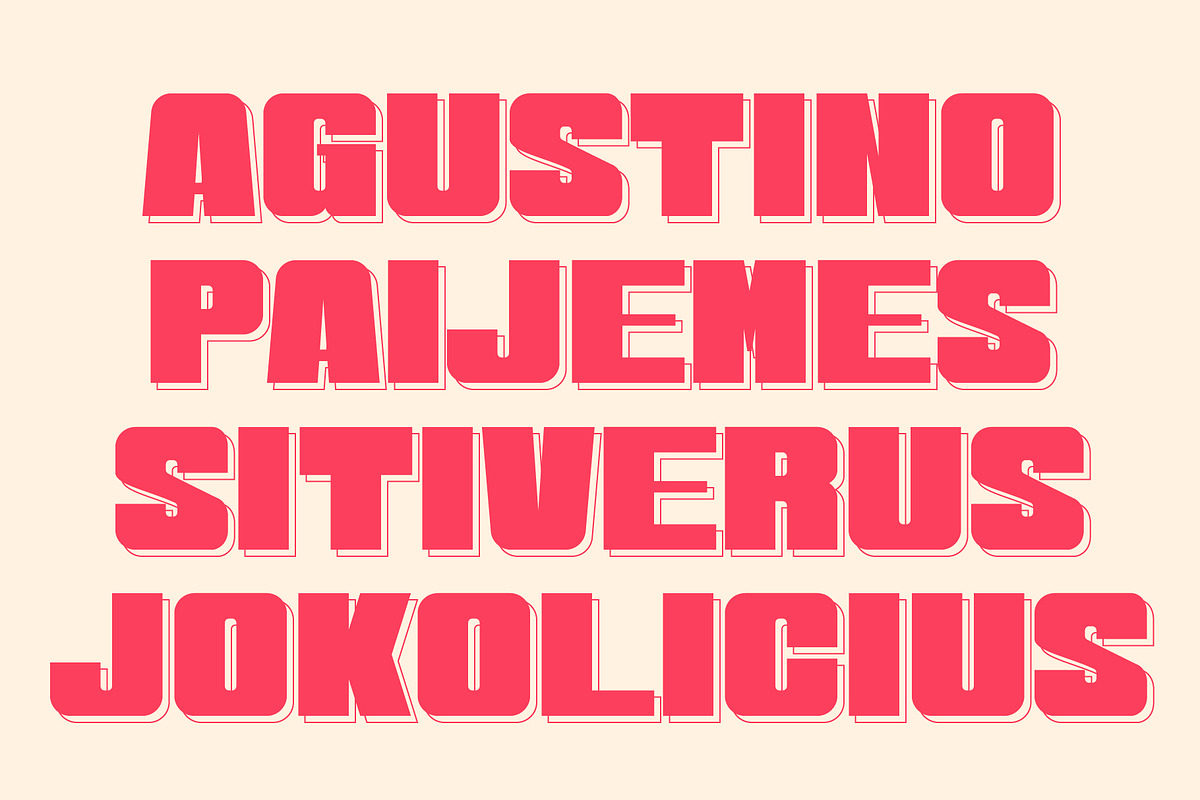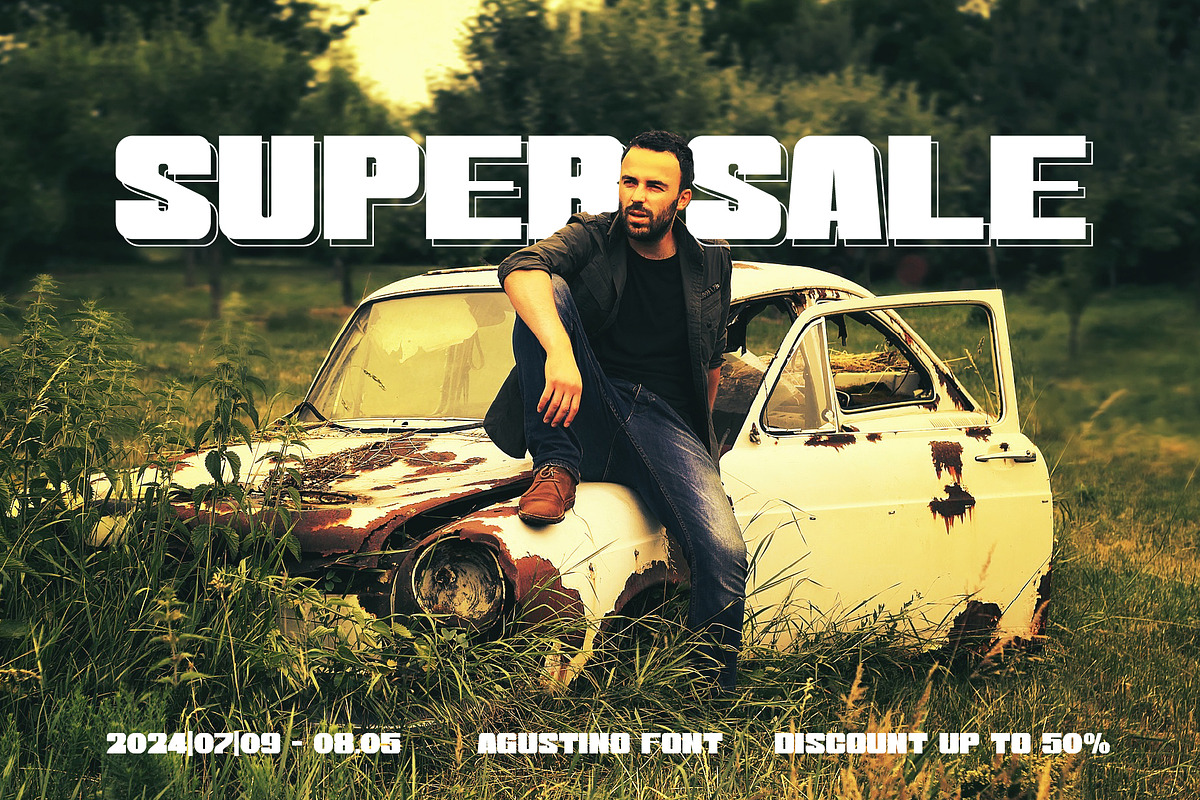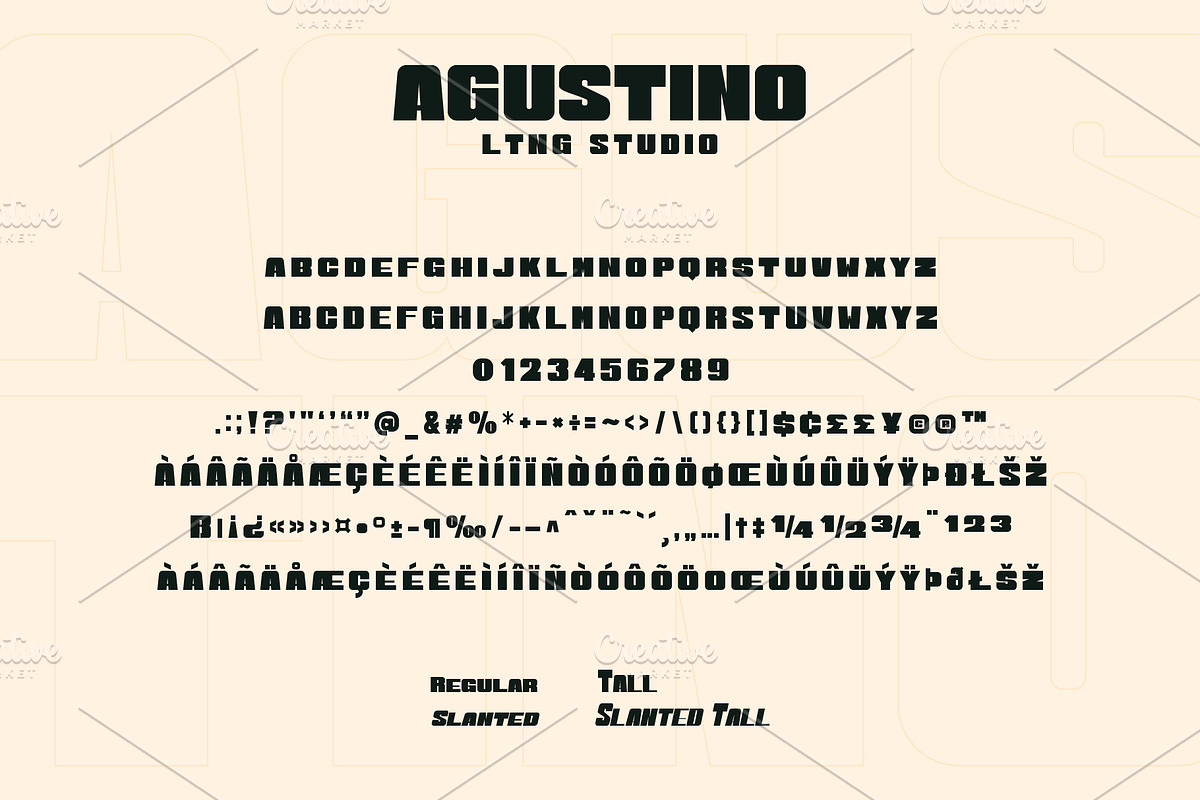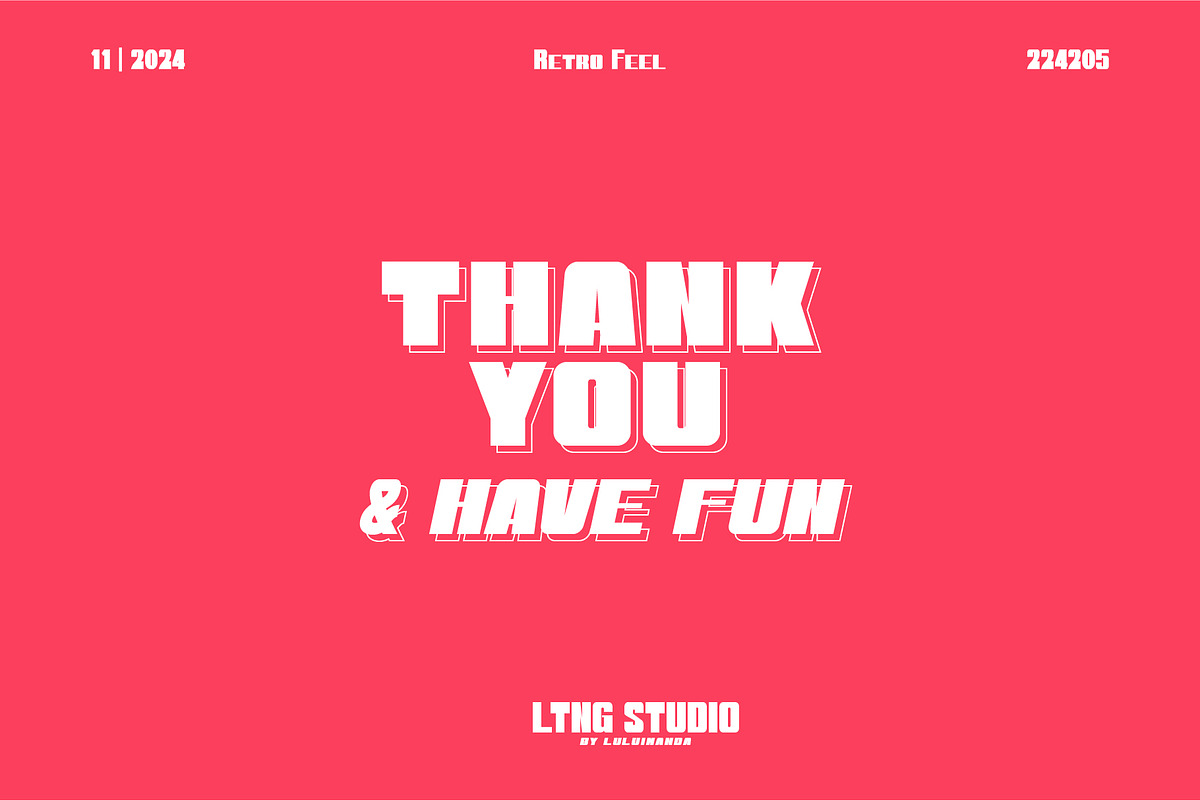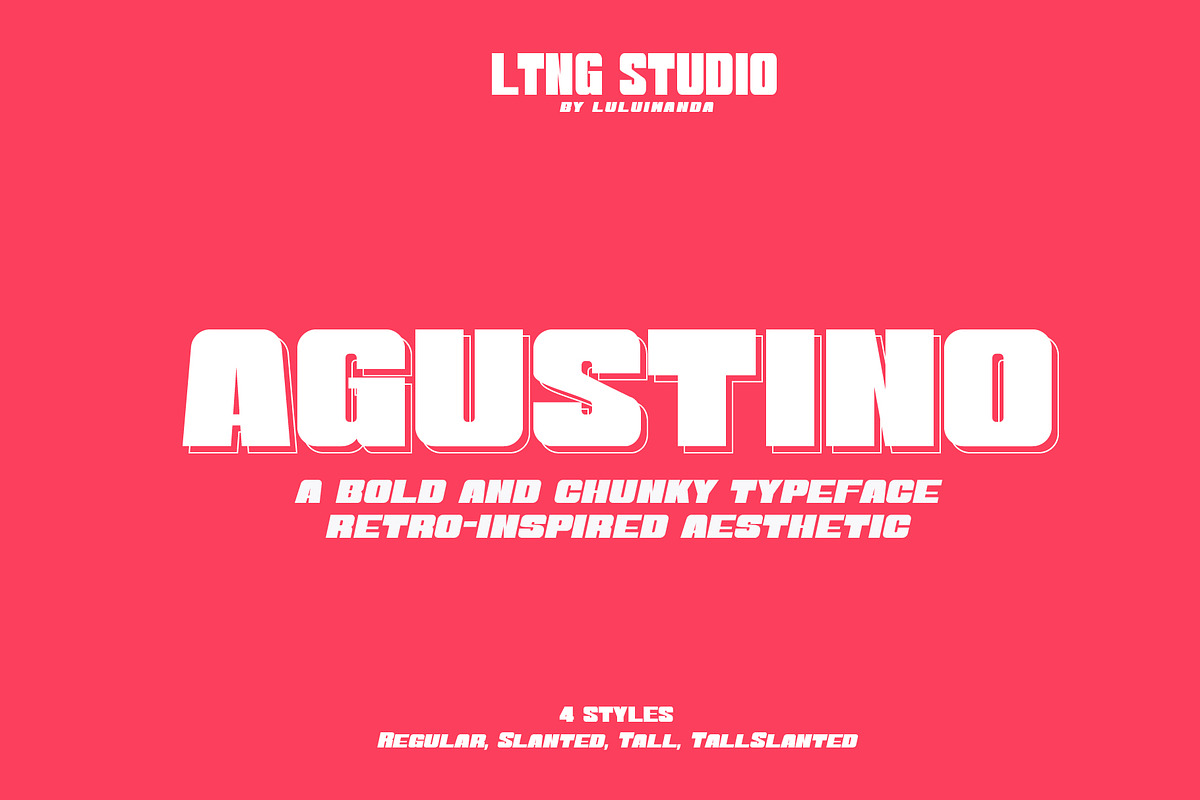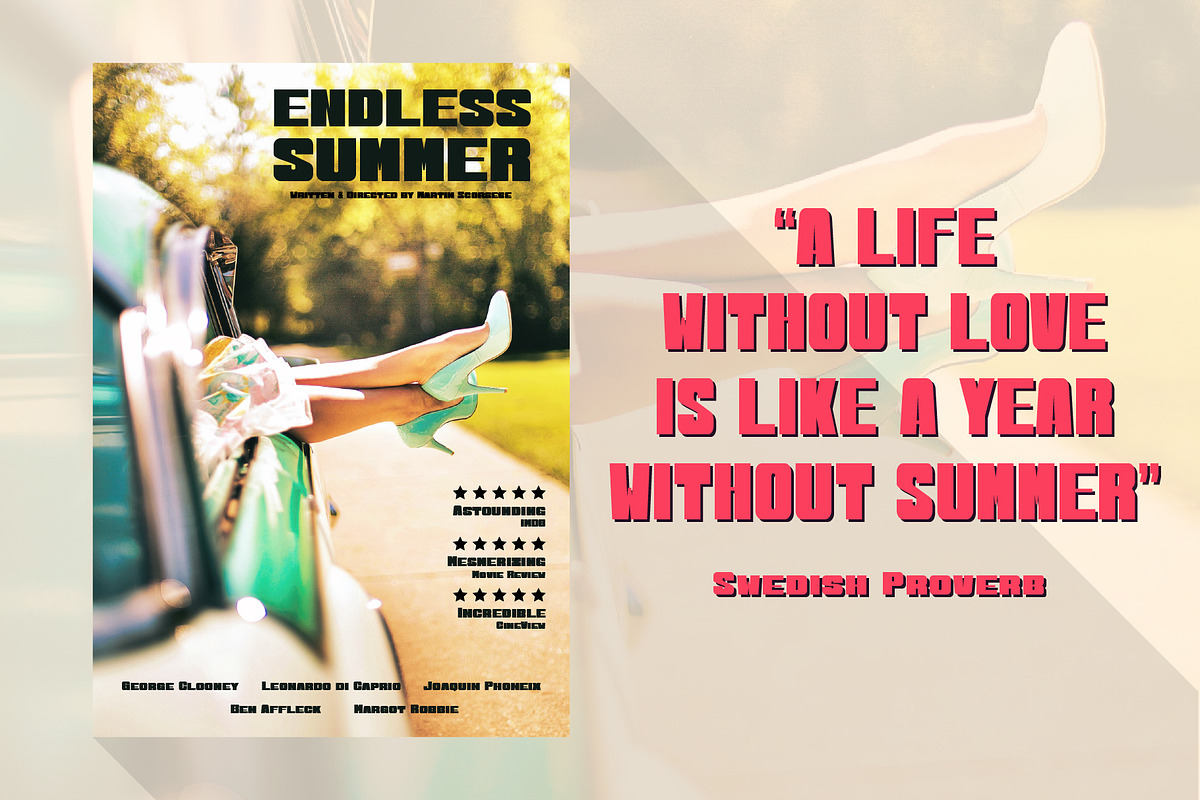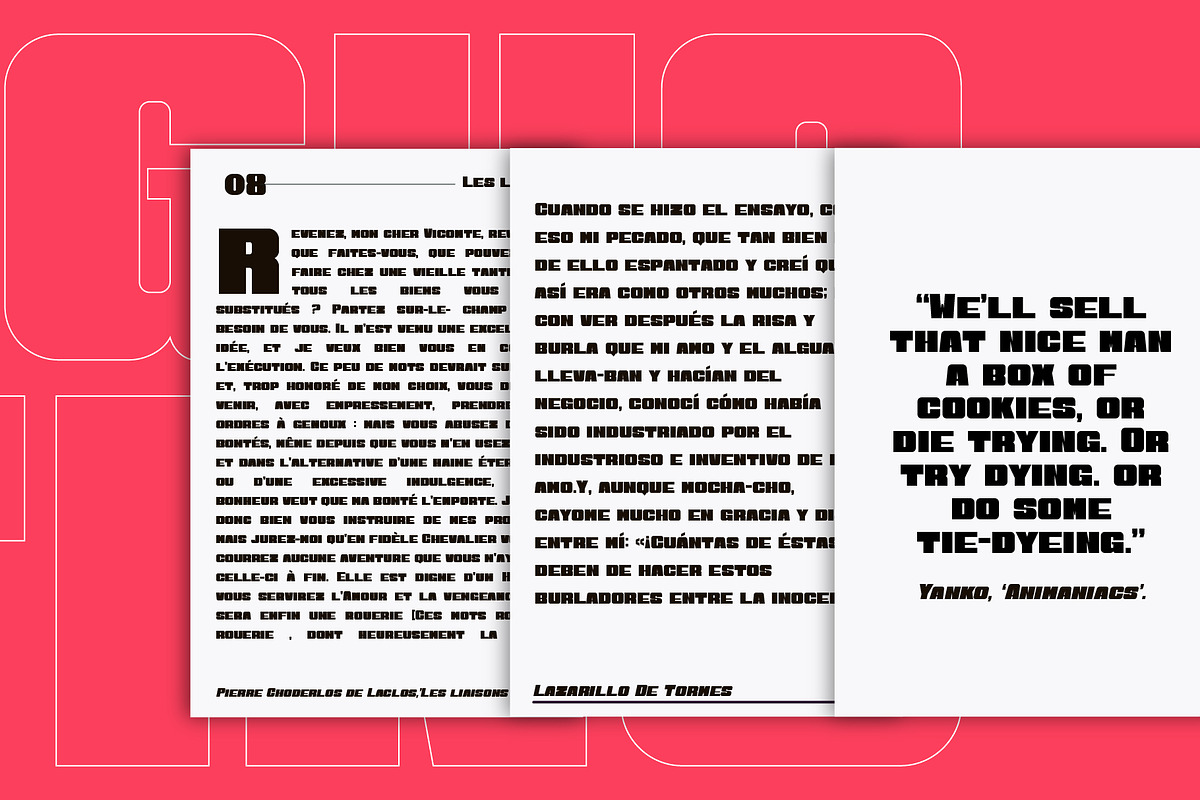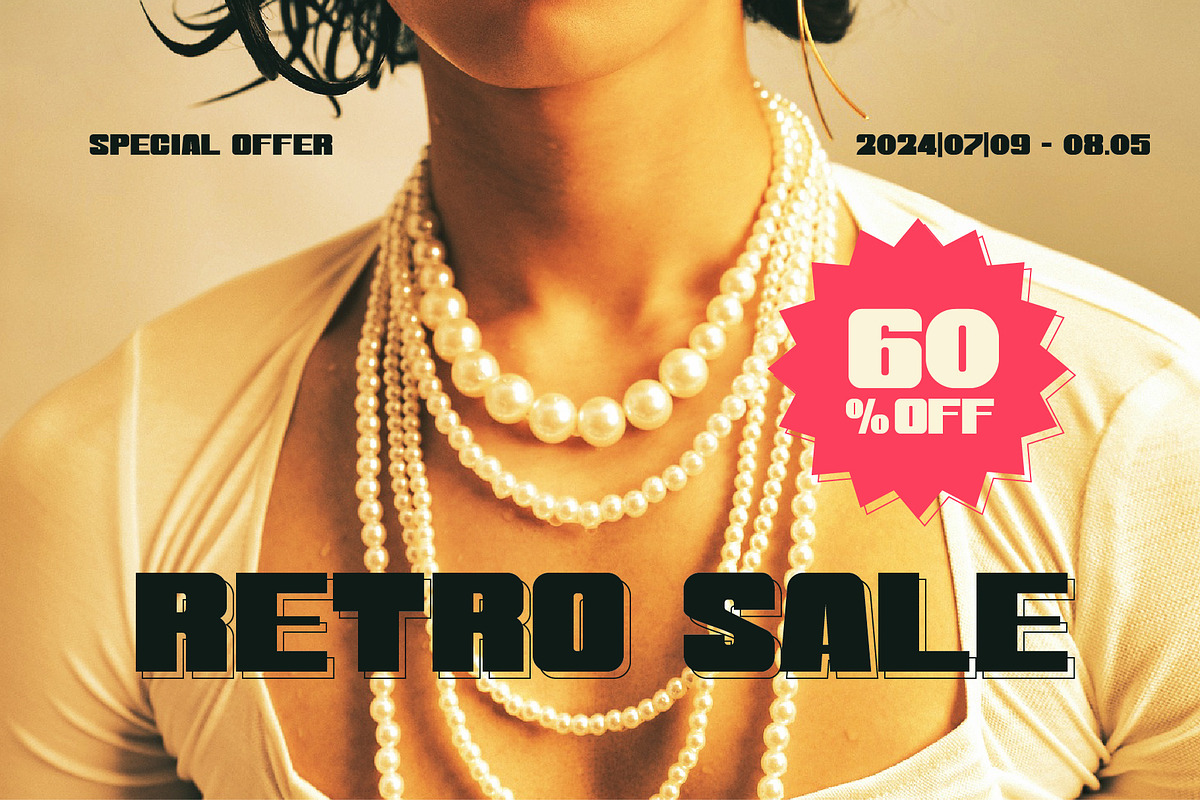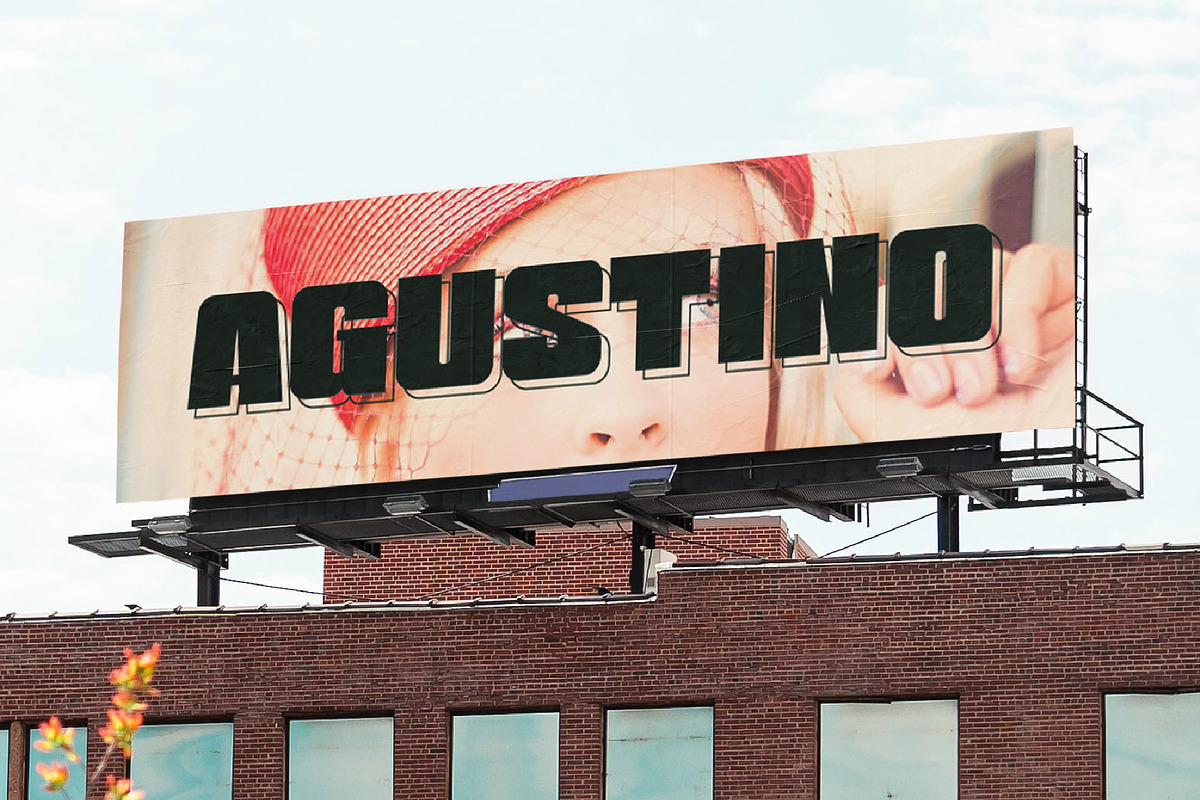
Agustino Chunky Font
The font "Agustino" is a bold and chunky typeface that exudes a strong, retro-inspired aesthetic. Its blocky letterforms and clean geometric lines make it ideal for creating impactful headlines, logos, and branding materials. The font includes uppercase and lowercase alphabets, numerals, punctuation, and a variety of special characters, making it versatile for diverse design needs. Agustino also supports extended Latin characters, making it suitable for multilingual usage. Its bold structure and timeless appeal make it a great choice for projects requiring a commanding and stylish typographic presence.